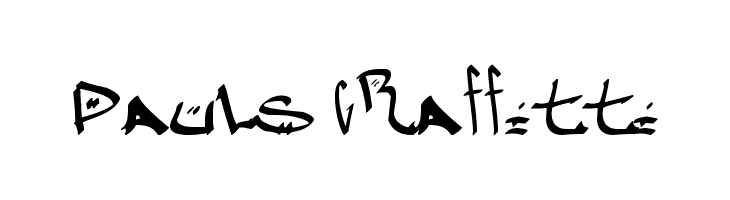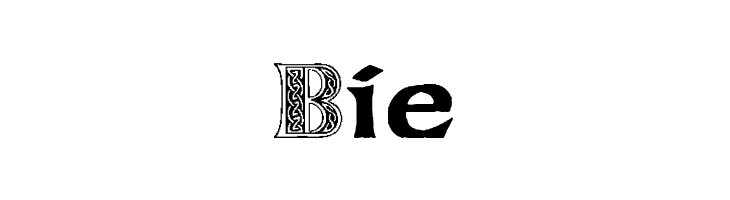
A bold, graffiti-inspired font with dynamic curves and sharp angles.
A bold, gothic-inspired font with sharp, angular lines and high contrast.
A decorative Celtic-inspired font with intricate, ornate designs.
A bold, calligraphic font with a brush-like texture and expressive style.
A dynamic italic font with sharp angles and smooth curves, exuding elegance and motion.
A playful, eclectic font with a ransom note style, featuring diverse and dynamic characters.
A bold, geometric font inspired by ancient runic alphabets, perfect for mystical or historical themes.
A bold, gothic blackletter font with ornate detailing and sharp angles.
A bold, decorative font with artistic, swirling elements and intricate details.
A bold, superhero-themed font with diamond-shaped outlines and intricate line work.